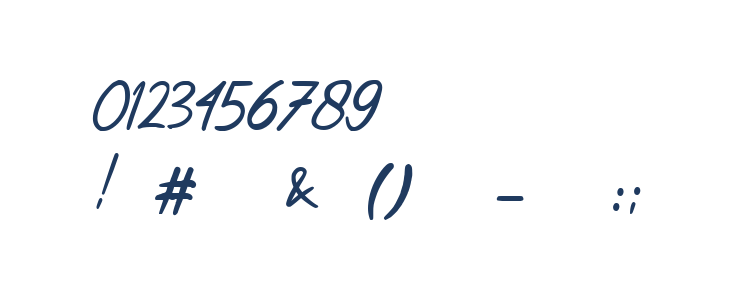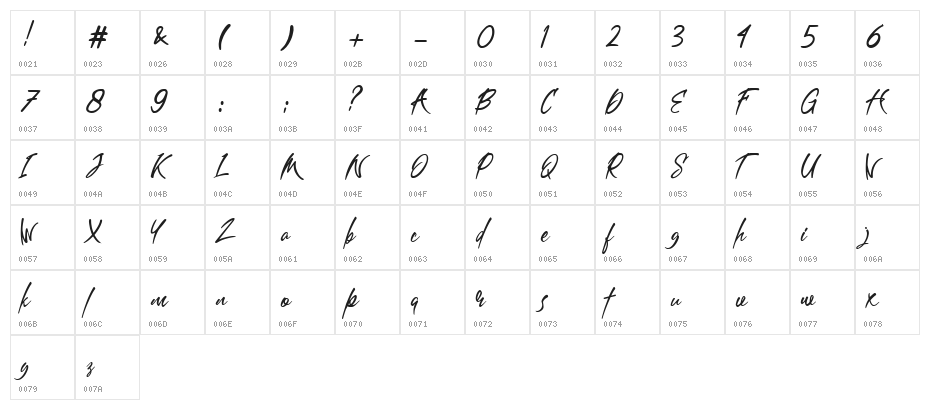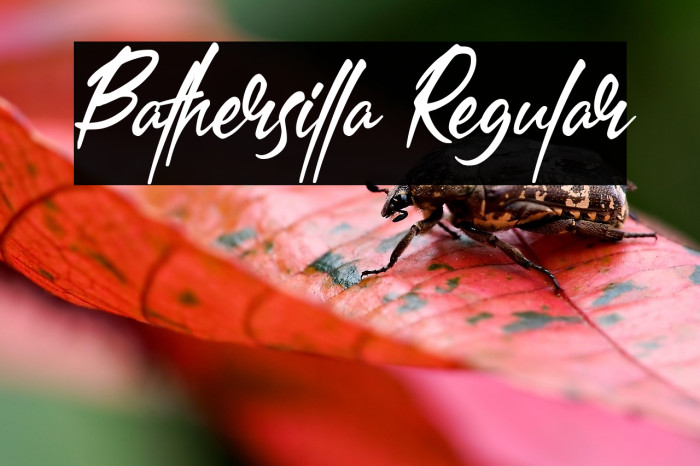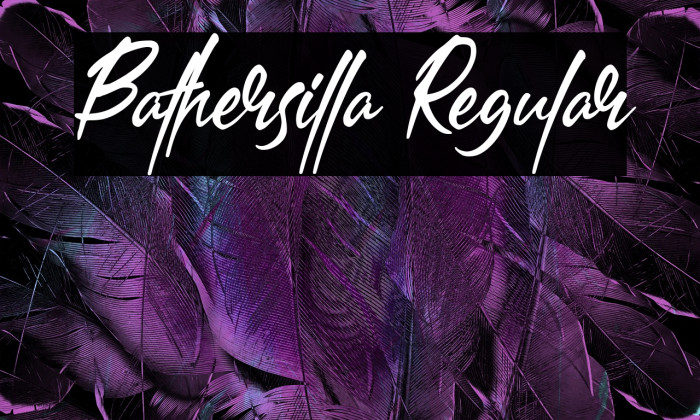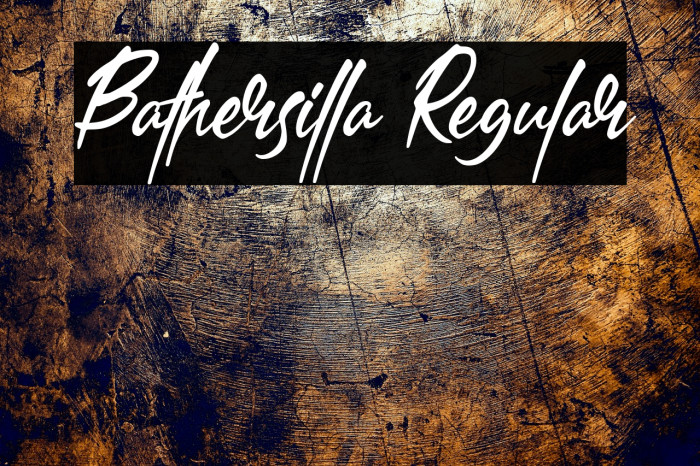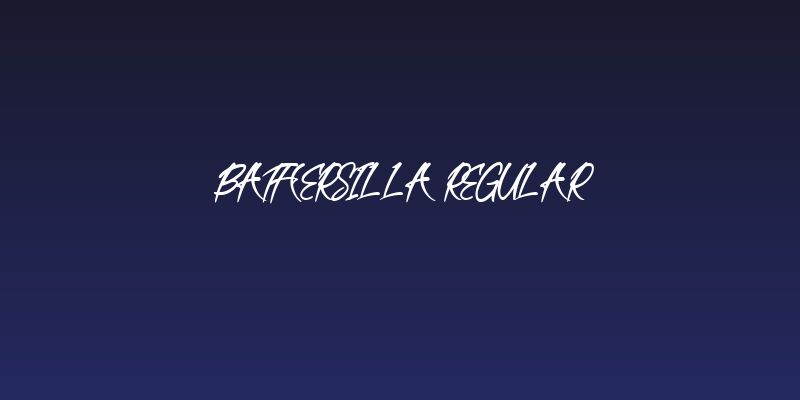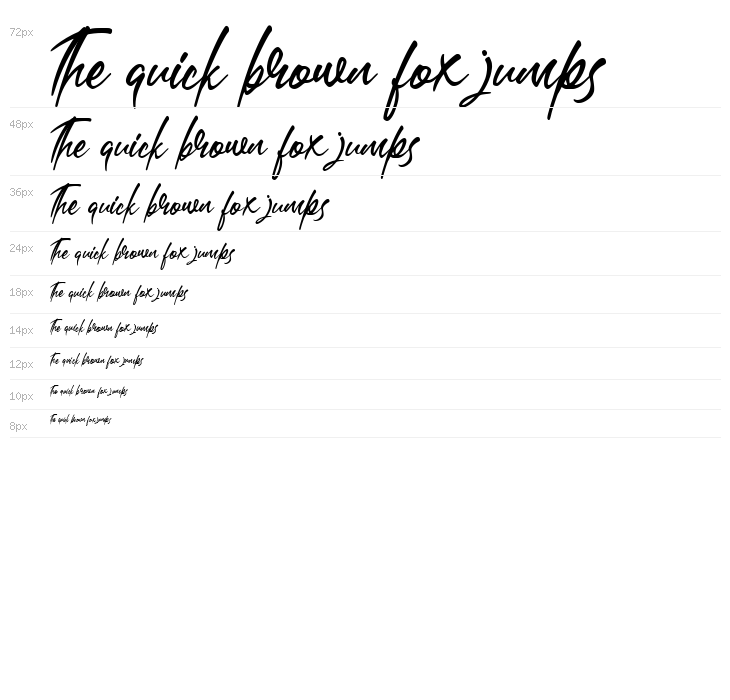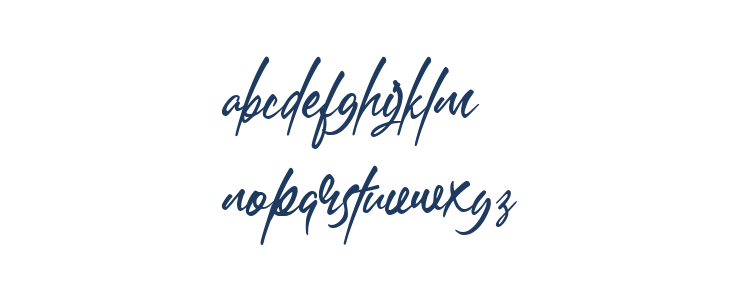
Bathersilla Regular Font
Bathersilla Regular Description
This font features a dynamic and expressive handwritten style, characterized by its fluid and cursive letterforms. The strokes are bold and sweeping, giving it a sense of motion and energy. Each character is uniquely crafted, with varying angles and curves that add to its lively appearance. The uppercase letters are particularly striking, with dramatic flourishes and a sense of grandeur. The lowercase letters maintain a consistent flow, enhancing readability while retaining the font's artistic flair. Numbers and special characters are designed with the same attention to detail, ensuring a cohesive look across all text elements.